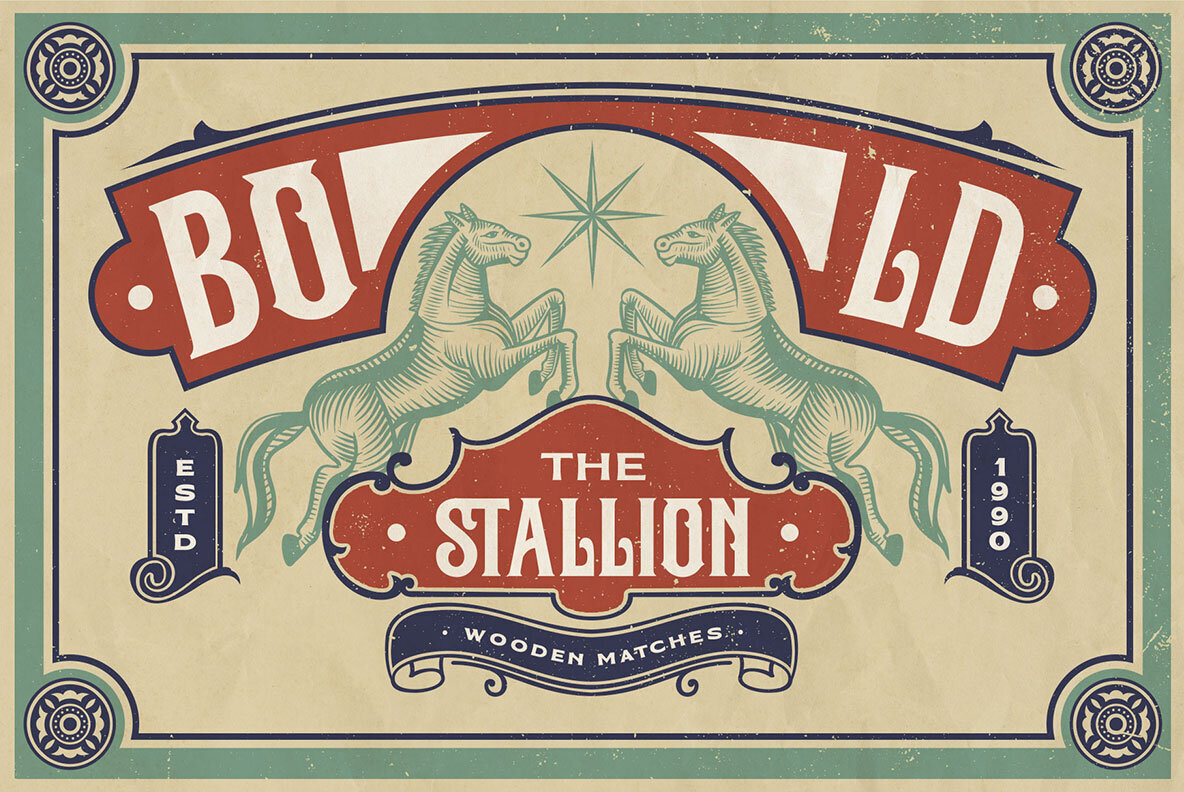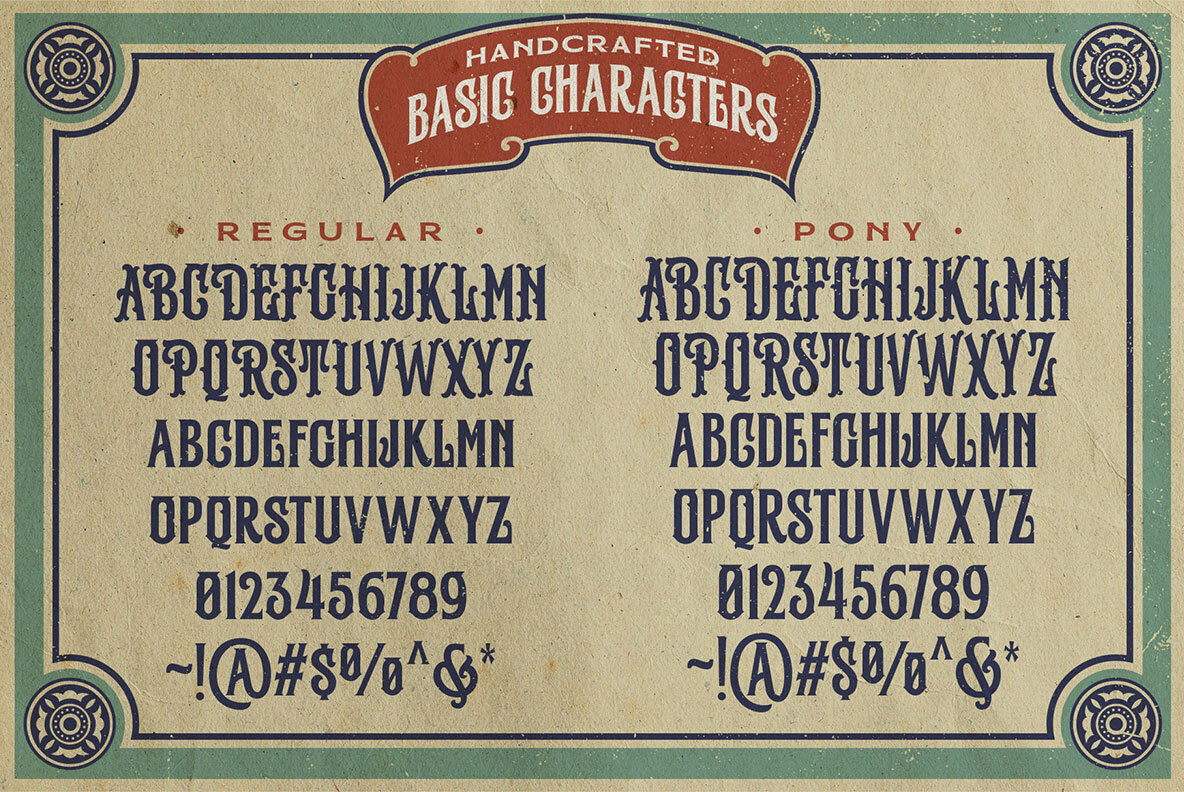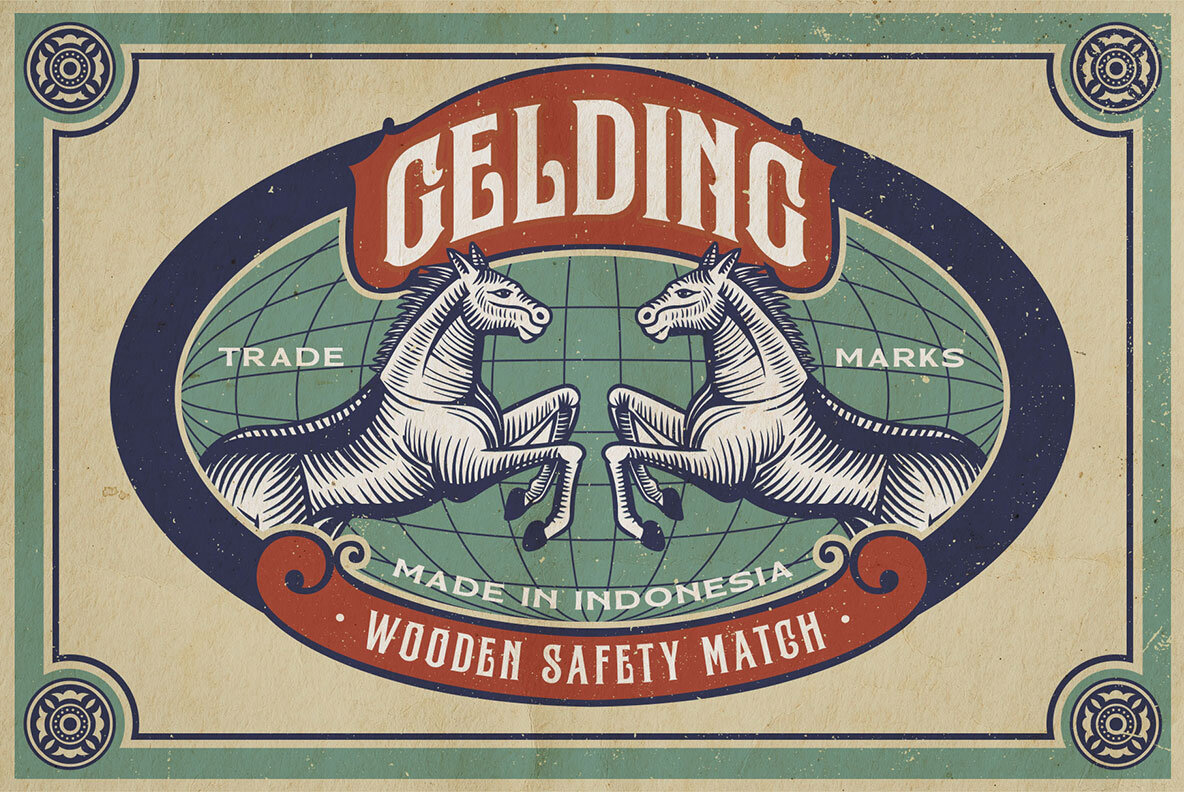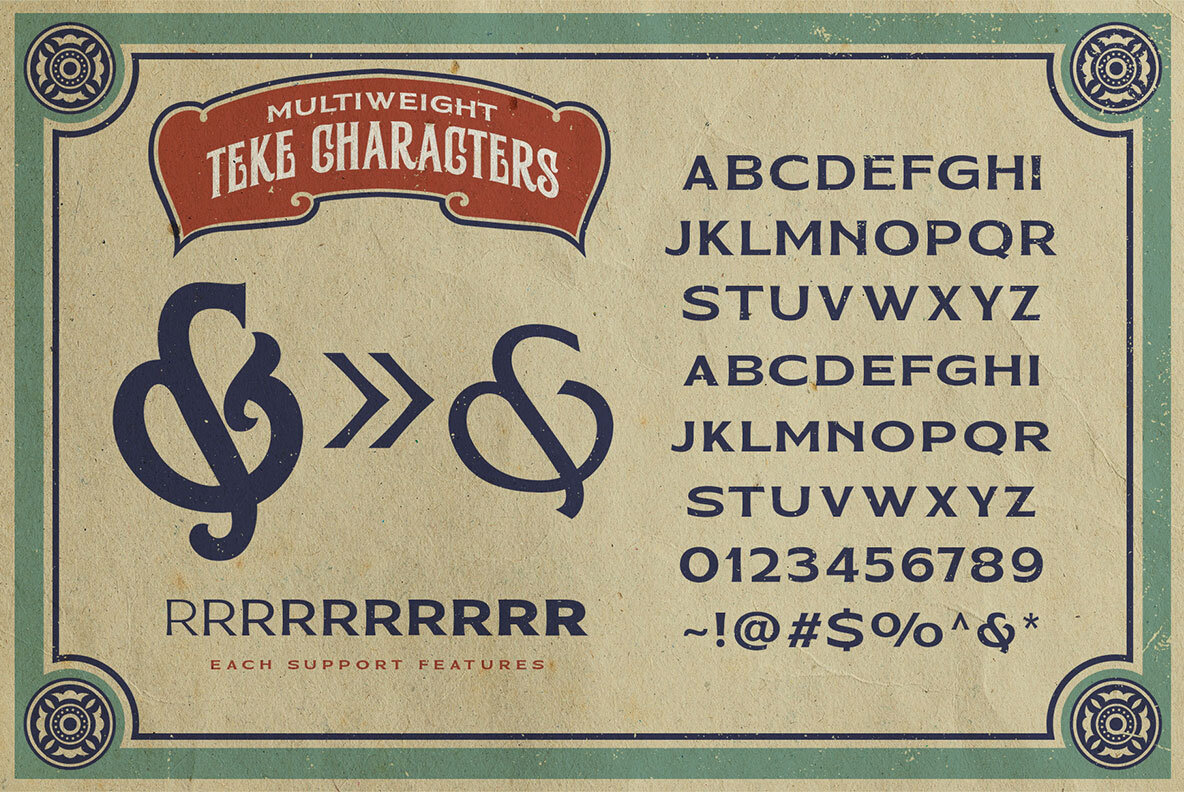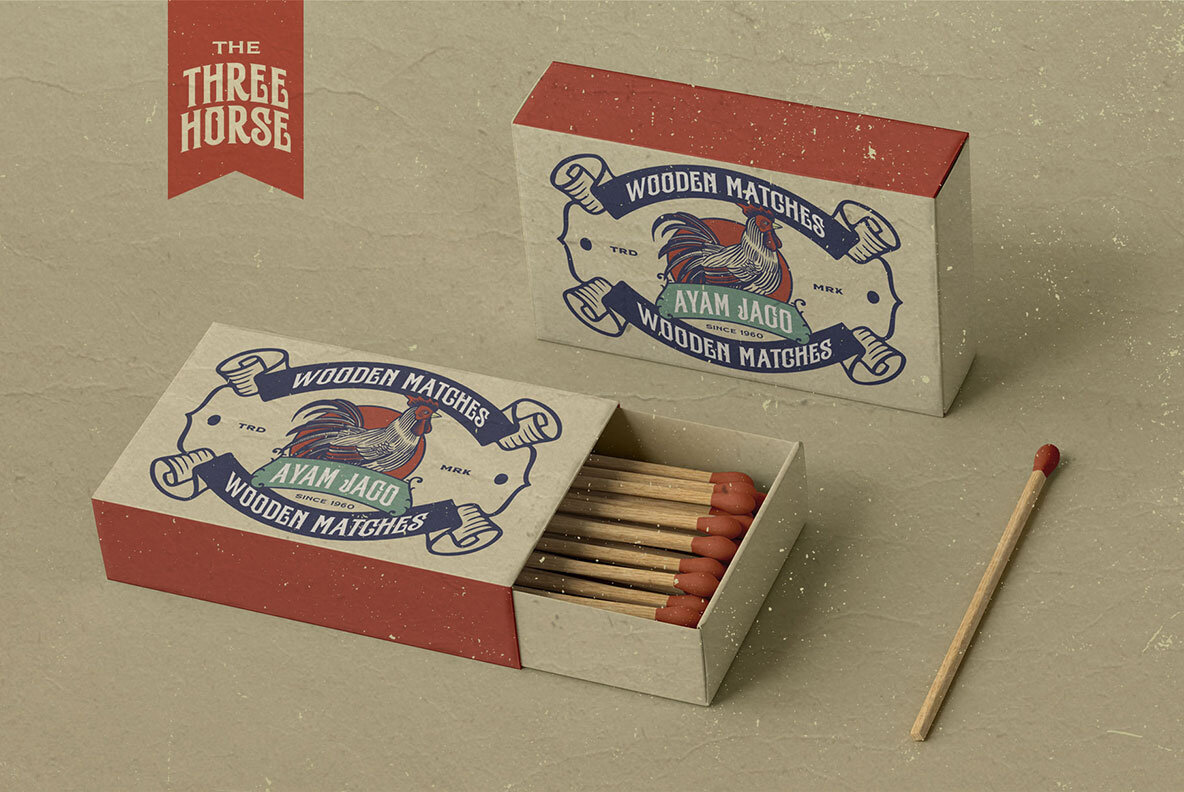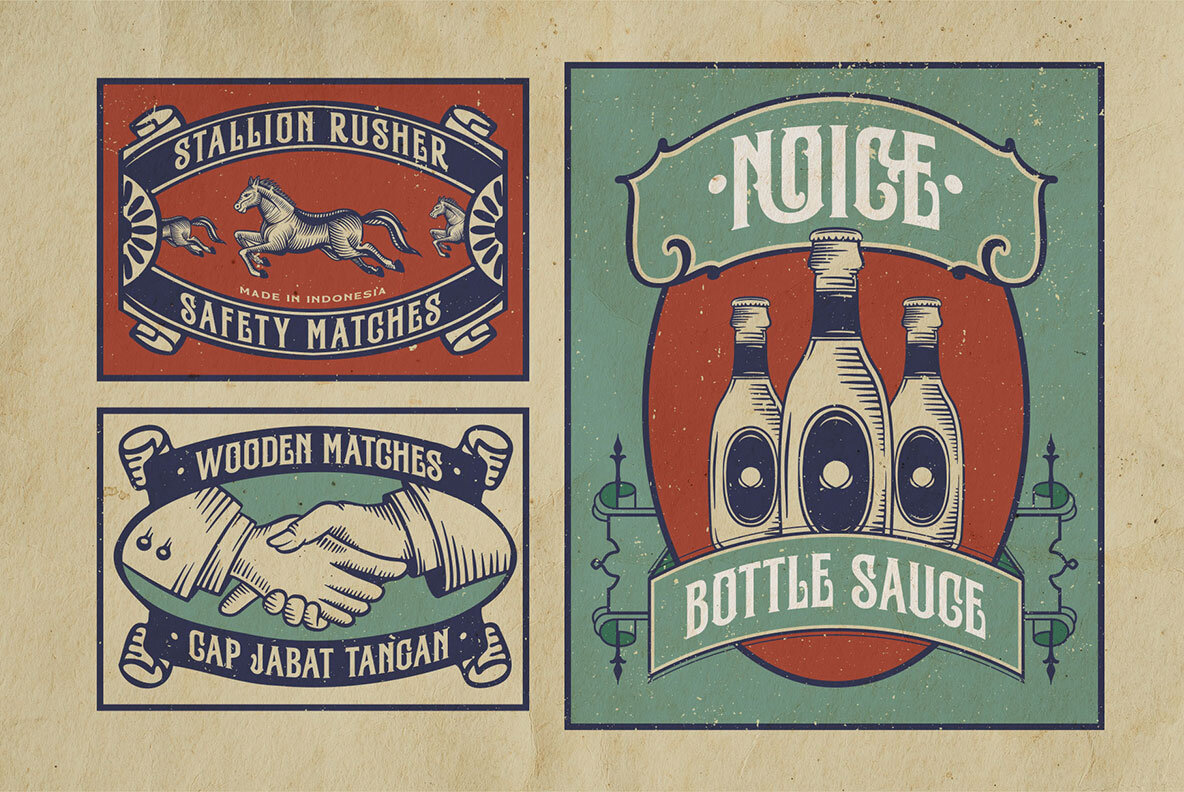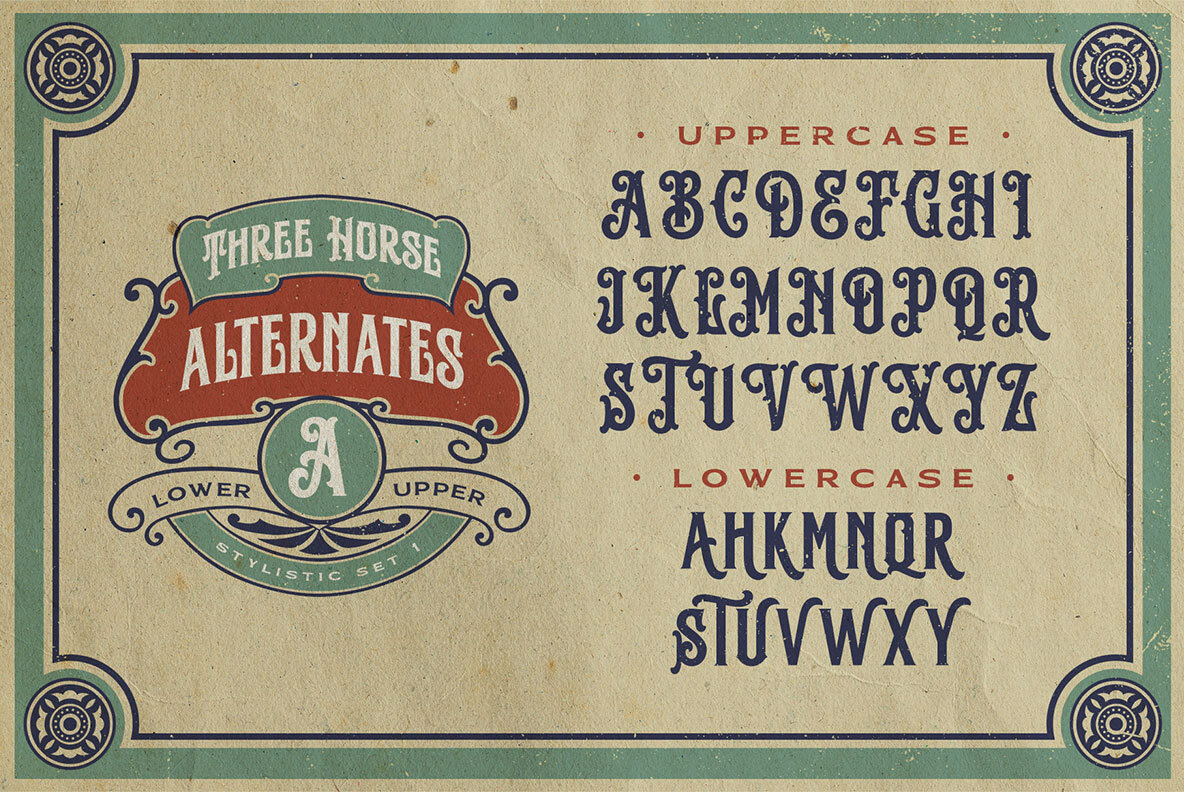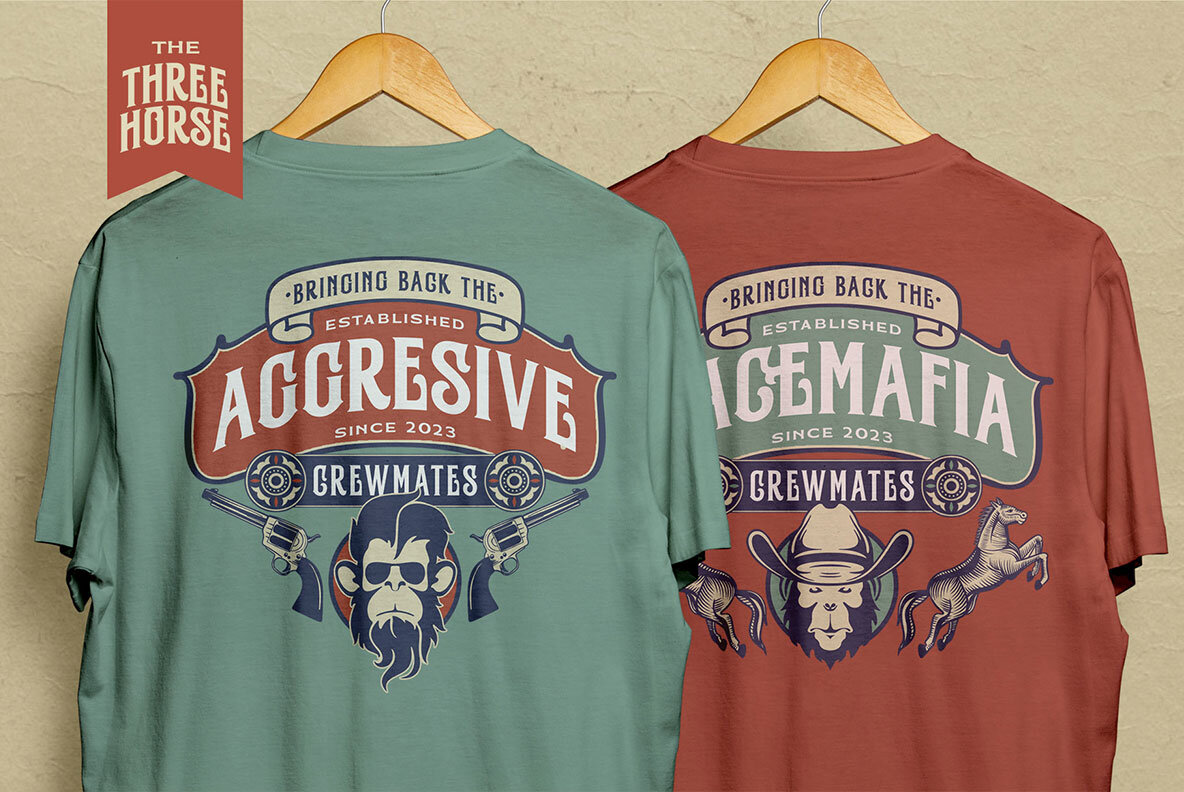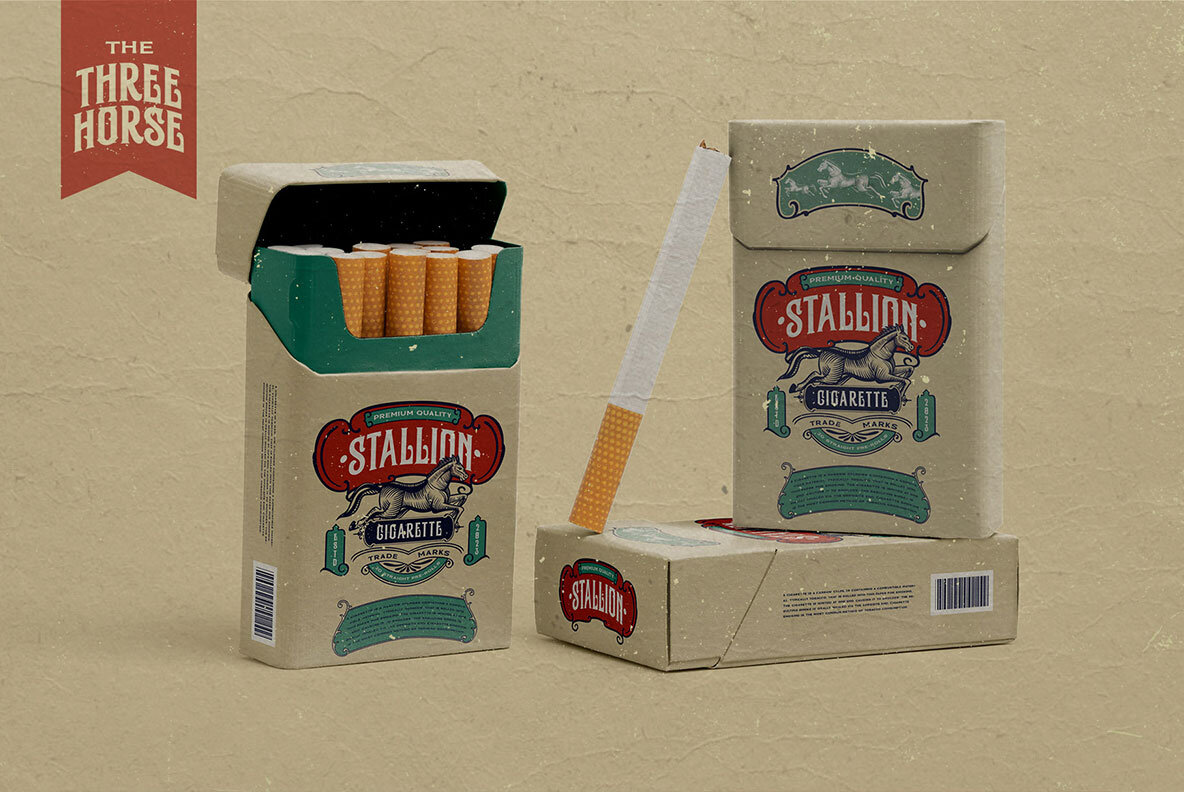
Three Horse Font
Introducing the "Three Horse" Vintage Letter Font Collection – a captivating journey into the artistry of yesteryears. This remarkable font family embodies the essence of vintage charm, offering 12 distinct font variations that encapsulate the character and nostalgia of classic letterforms. The "Three Horse" collection is your gateway to a world of timeless design, perfect for projects seeking to evoke the allure of eras gone by. Each font style within the "Three Horse" collection exudes a sense of authenticity and craftsmanship reminiscent of vintage typography. The meticulously designed letterforms capture the nuanced elegance of historical fonts, while maintaining modern readability for contemporary applications. Enriching this collection, you'll discover an array of meticulously crafted dingbat elements, frames, and ornaments. These decorative accents harmonize seamlessly with the fonts, enabling you to craft compositions that emanate the true spirit of vintage aesthetics. The dingbat elements draw inspiration from intricate motifs, gracefully complementing your designs with an air of nostalgia and refinement. As a delightful bonus, the "Three Horse" Vintage Letter Font Collection includes a set of exquisite vector illustrations. These illustrations are thoughtfully created to perfectly align with the fonts and embellishments, enhancing your designs with an authentic vintage touch. Immerse yourself in the beauty of these illustrations, designed to transport your projects to a bygone era. Whether you're designing invitations, signage, packaging, or any project that yearns for vintage appeal, the "Three Horse" Vintage Letter Font Collection offers an extensive array of options. Elevate your creations with the timeless allure of vintage typography, featuring fonts, dingbats, frames, ornaments, and captivating vector illustrations. Experience the magic of "Three Horse" today and infuse your designs with the nostalgic charm of vintage letterforms.